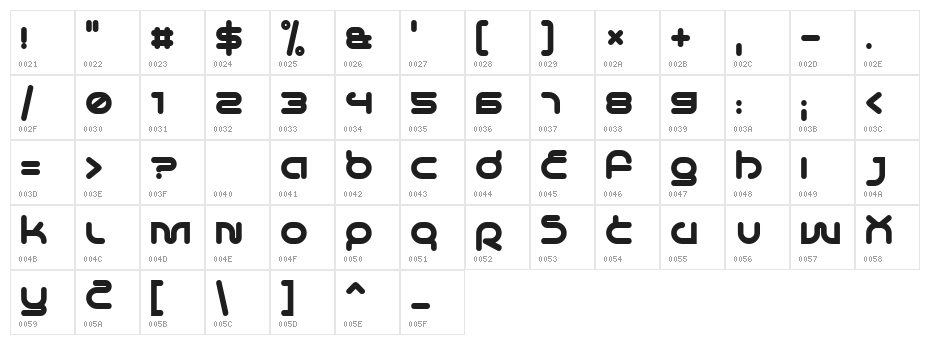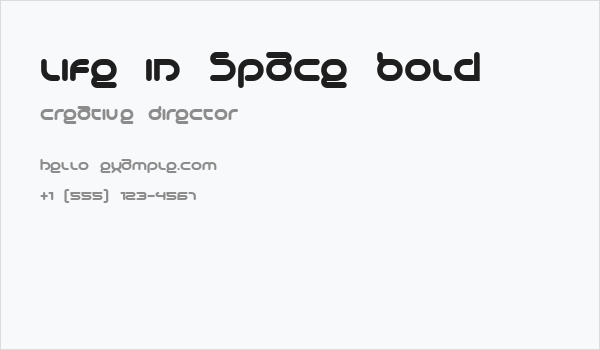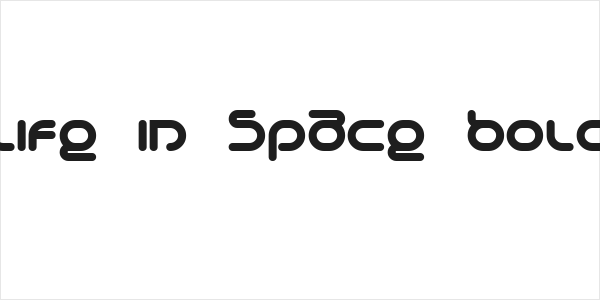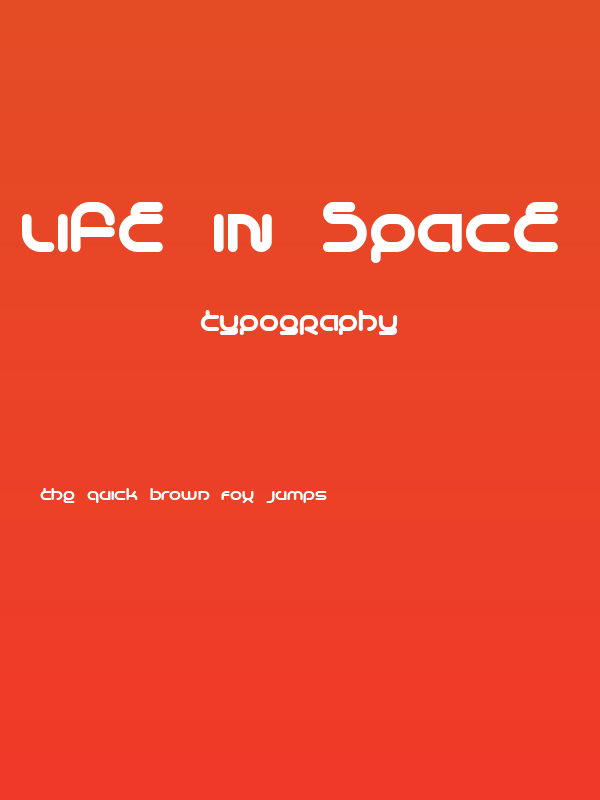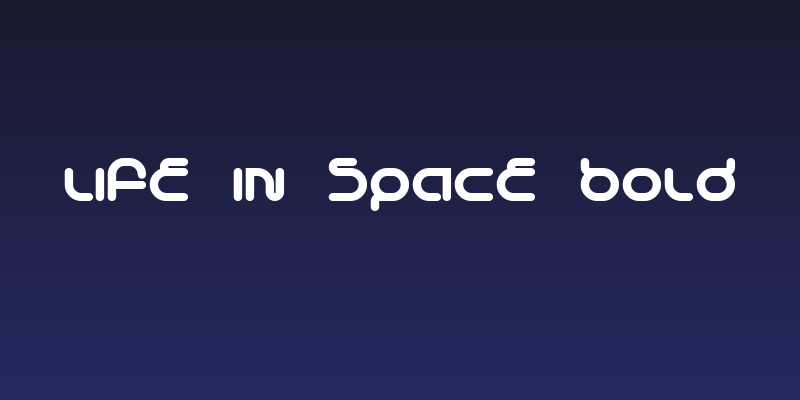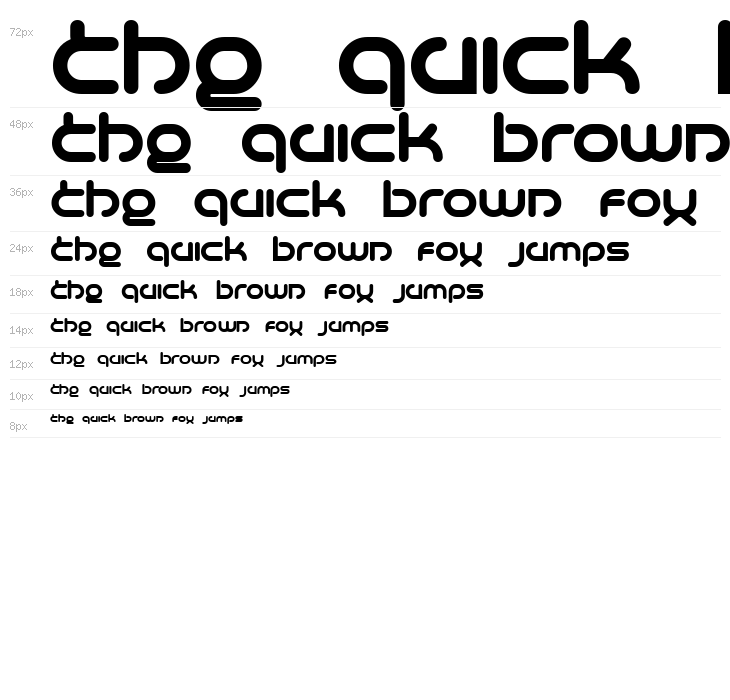
Life in Space Bold Font
Life in Space Bold Description
This font features a futuristic and bold design with rounded edges and a geometric structure. The characters are evenly spaced, with a consistent thickness throughout, giving it a uniform appearance. The uppercase and lowercase letters maintain a similar style, with slight variations in height and width. The numbers and special characters are designed to match the overall aesthetic, making it suitable for modern and tech-oriented projects. Its boldness and unique style make it stand out, while the rounded edges add a touch of softness to the otherwise strong and assertive look.